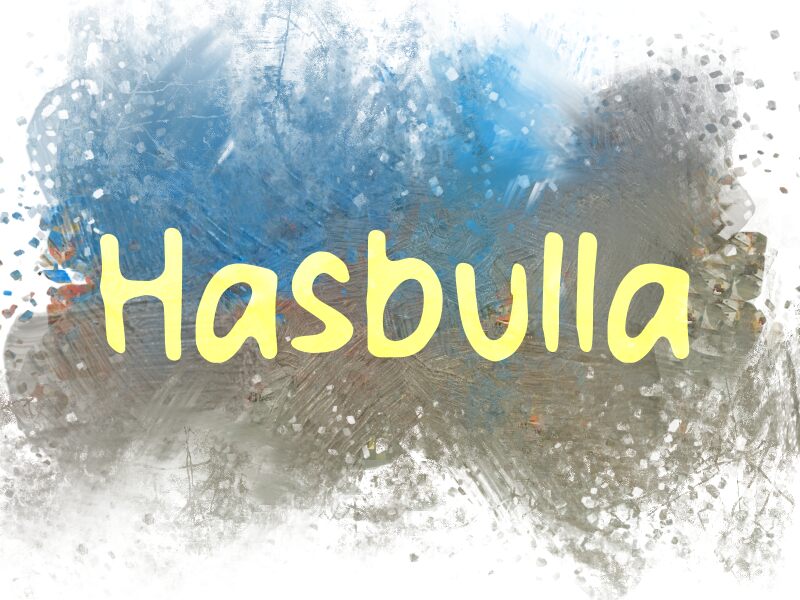
Hasbulla
Hasbulla font designed by wep is a playful and informal comic typeface inspired by the famous MMA influencer Hasbulla Magomedov. The distinctive font is bold, rounded, and comes in as all uppercase letters. Its whimsical style makes it suitable for imaginative projects oriented toward kids, light-hearted topics, or casual headlines.
Hasbulla is one of those free fonts that are easy to download and use right away which makes it a great addition to your personal font library. Use it for children’s book titles, posters or flyer headings, branded packaging products, book covers, typography artwork ideas, or social media stories.